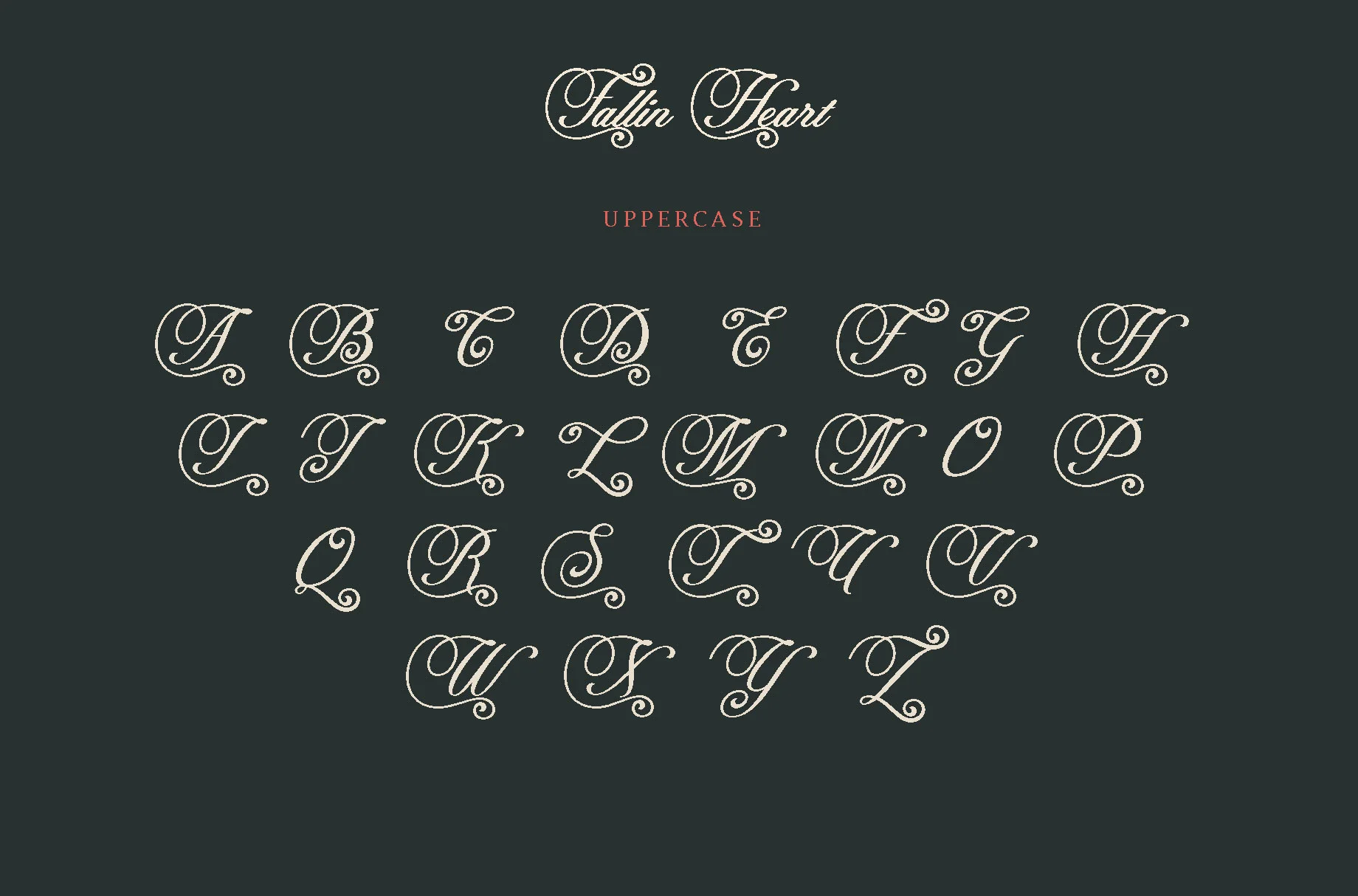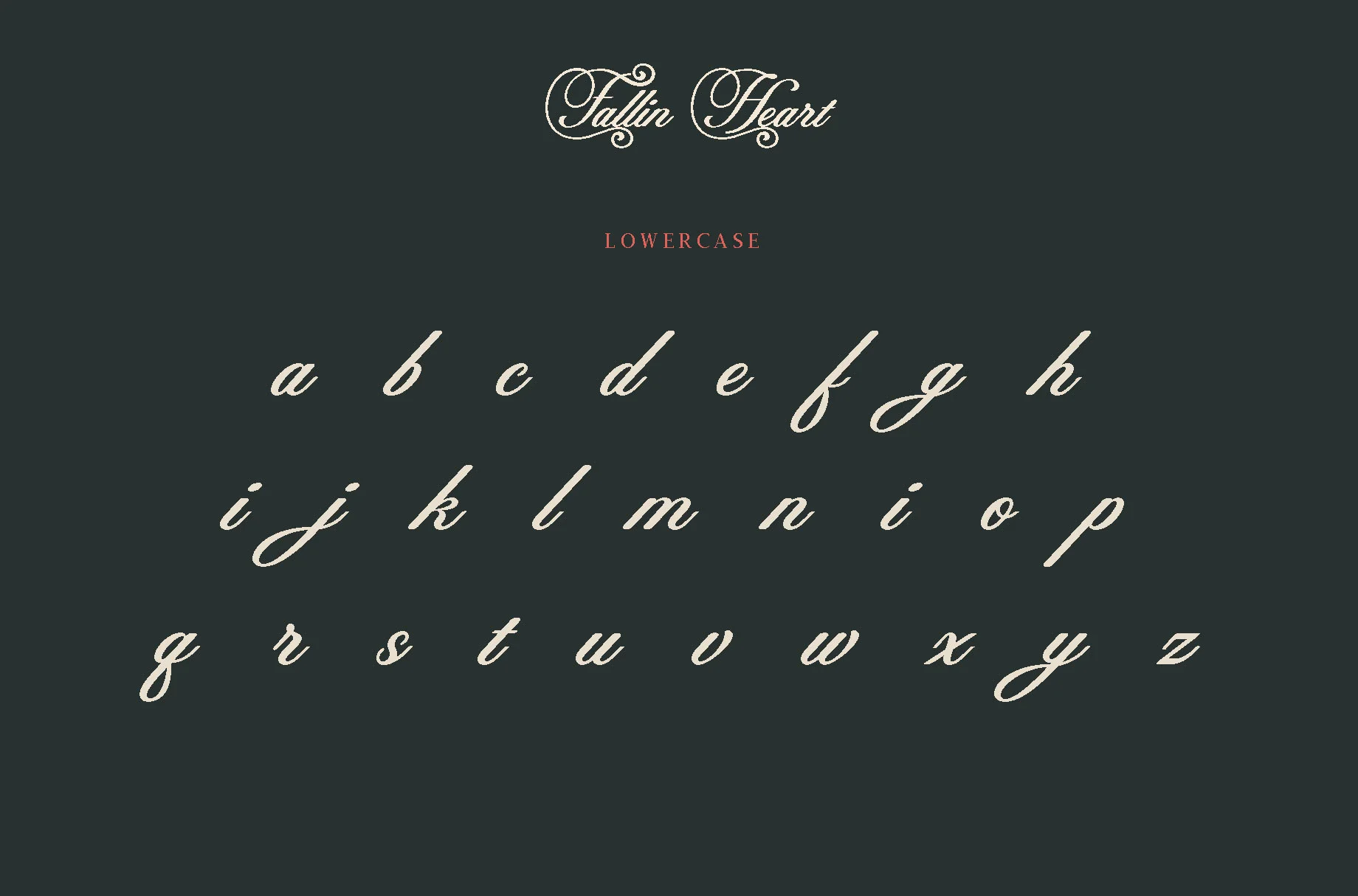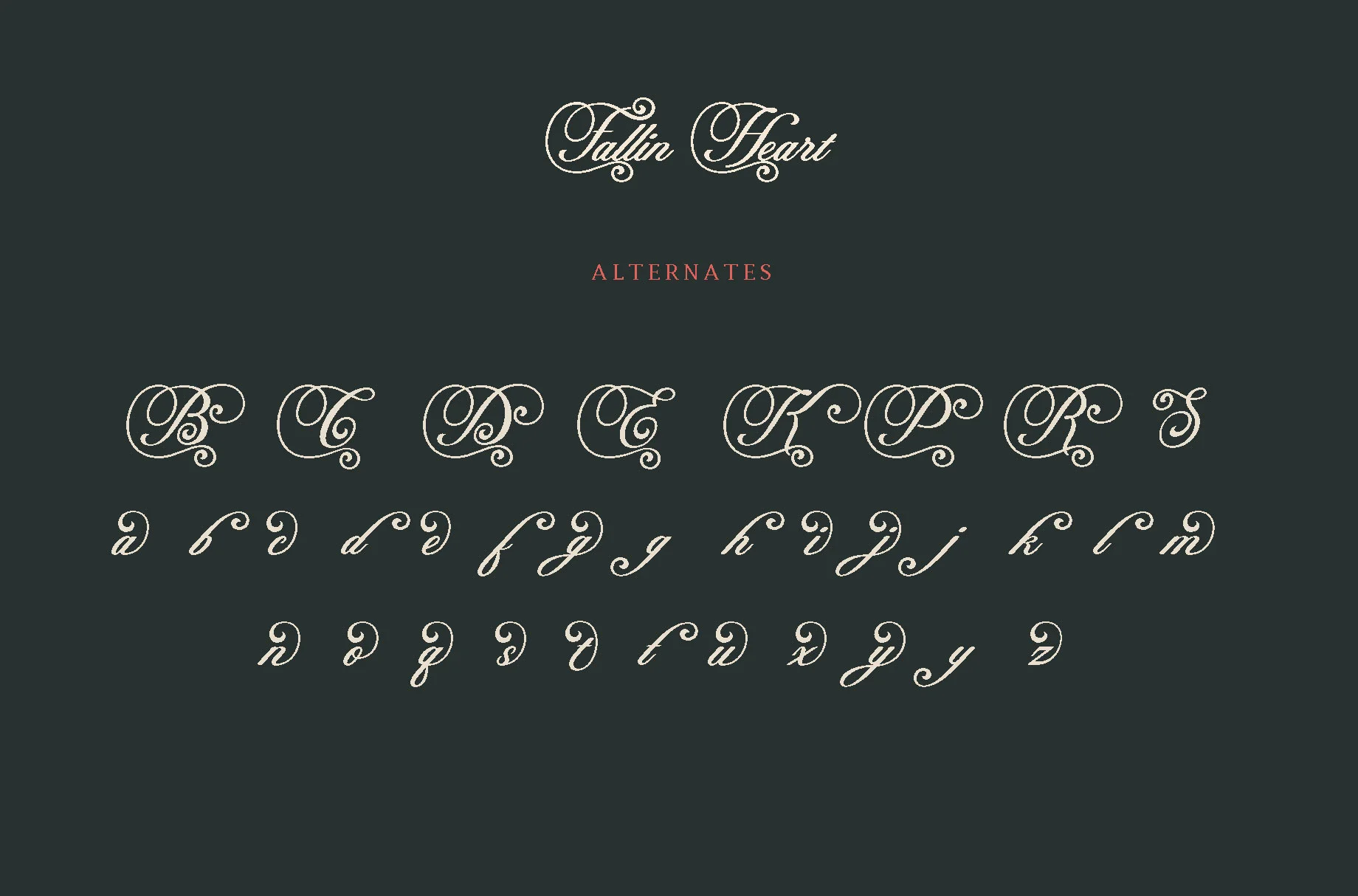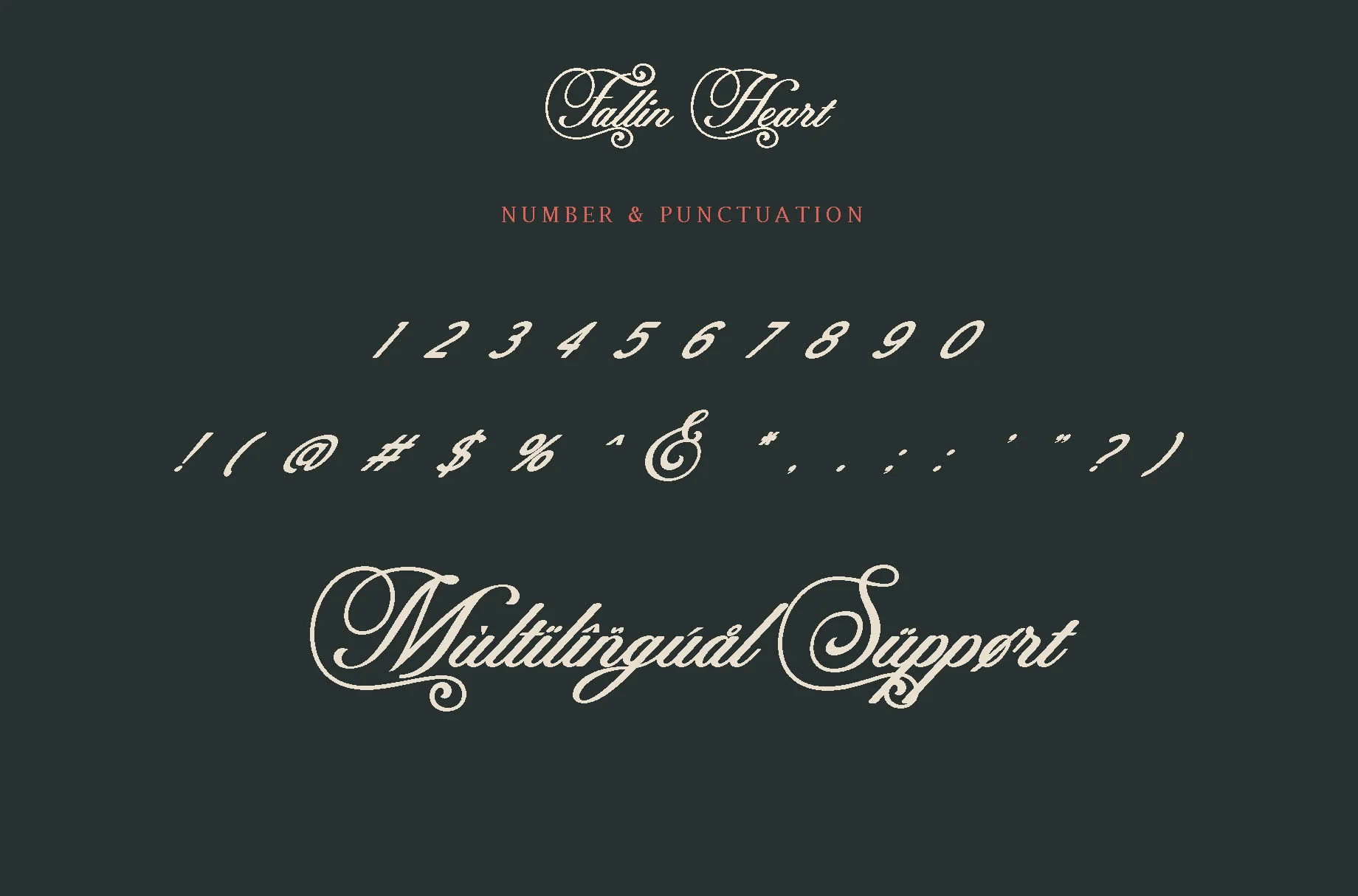
Fallin Heart
**Fallin Heart** will perfect for many project: book, magazines, logo, branding, photography, quotes, blog header, poster, advertisements, etc.
**Feature**
* Uppercase
* Lowercase
* Numeral
* Functional
* Multilingual
* Stylistic